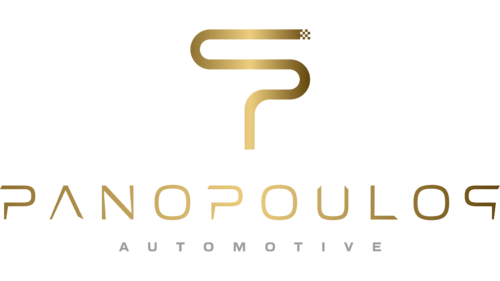
Spyros Panopoulos is an automotive designer and entrepreneur from Greece, known for founding Spyros Panopoulos Automotive (SPA). He gained recognition for creating the “Chaos”, touted as the world’s first “Ultra Car”. This term surpasses “Hyper Car” in exclusivity and performance. The Chaos was designed and built in Greece, showcasing advanced technology and unprecedented speed capabilities. It represents a blend of engineering prowess and luxury, aiming to redefine the limits of automotive performance and design. Panopoulos’ work symbolizes innovation in the high-end car industry.
Spyros Panopoulos Automotive (SPA), spearheaded by Spyros Panopoulos, a pioneer in the automotive industry, has been shaping the landscape of luxury vehicles for over two decades. The company’s journey began with a strong foundation in automotive innovation and a commitment to pushing the boundaries of vehicle performance and design.
SPA stands out for its pioneering stance in automotive design, most notably with the “Chaos” ultra-car, a vehicle that reshapes our understanding of high-performance engineering. This flagship model proves SPA’s commitment to merging avant-garde technology with groundbreaking design principles like Anadiaplasis, which relies on the innovative process of additive manufacturing.
Beyond just crafting luxury vehicles, SPA’s vision extends to the frontiers of sustainability and efficiency. This is evident in their ventures like the Zion Hydrogen Supercar and the Cubicle-EV, which are SPA’s bids to redefine the trajectory of transportation, leaning into a future where mobility is both advanced and eco-conscious. This holistic approach towards innovation, luxury, and sustainability positions SPA as a distinguished name in the global automotive arena.
What is Spyros Panopoulos?
Innovating in the automotive industry, Spyros Panopoulos established the notable Spyros Panopoulos Automotive (SPA), pioneering the industry with his company. Celebrations follow him for driving the development of “Chaos”, the ultra-car that redefined high-performance vehicles with its trailblazing technology and design. His work embodies advanced engineering, luxury, and a progressive vision for mobility’s future.
Spyros Panopoulos logo
The logo features a stylized “S” that elegantly curves to resemble a serpentine road, symbolizing movement and the path less traveled. Its golden hue exudes luxury and quality, indicative of the company’s premium positioning in the automotive market. The checkered flag detail at the end of the “S” subtly nods to racing heritage and performance excellence. “PANOPOULOS AUTOMOTIVE” is spelled out in a sleek, modern font, asserting the brand’s forward-looking approach and precision engineering.